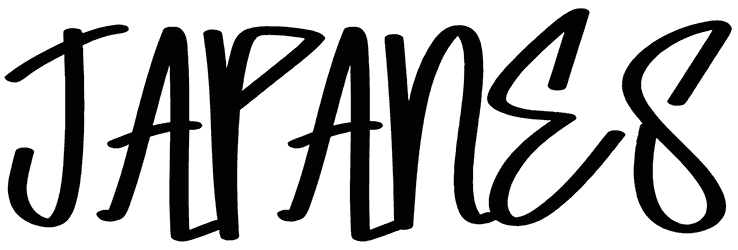
Japanes Font
If you are seeking a letterform that has a cool graffiti visual and can also convey a traditional vibe, this handwritten font will be a distinct pick. The letters of the Japanes font are a bit unreadable, but it can cause a mesmerizing mood for your design. This script font supports almost all characters, and you can set them for any layout, like a street art flyer.